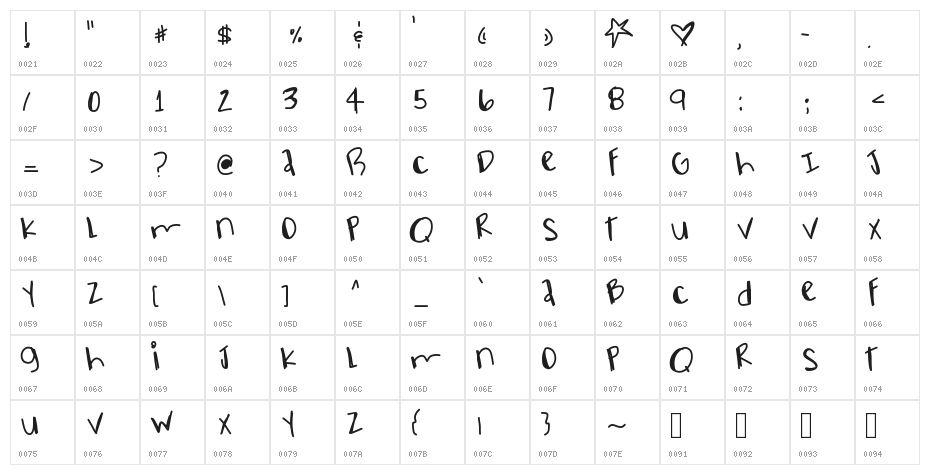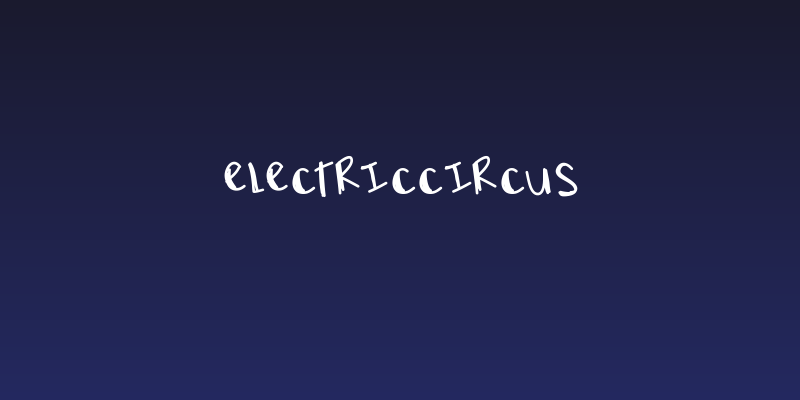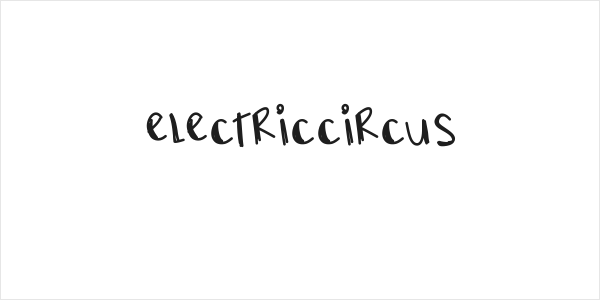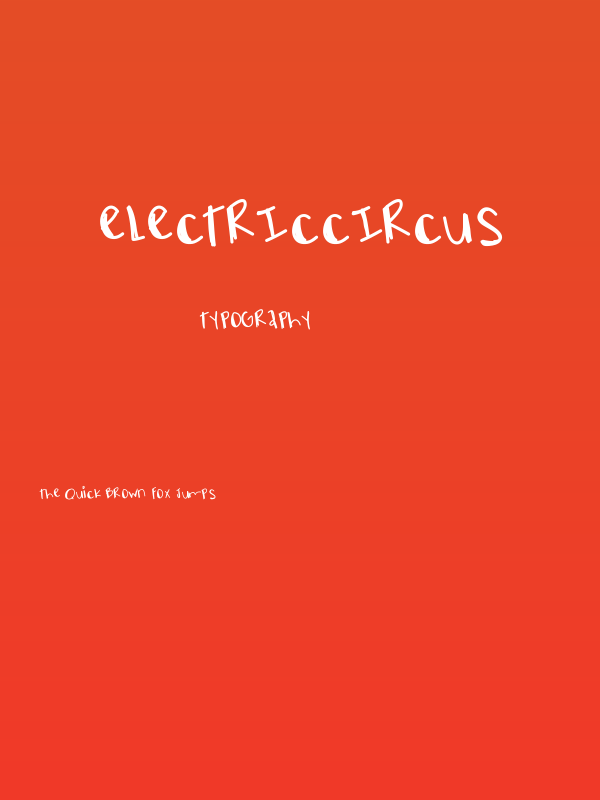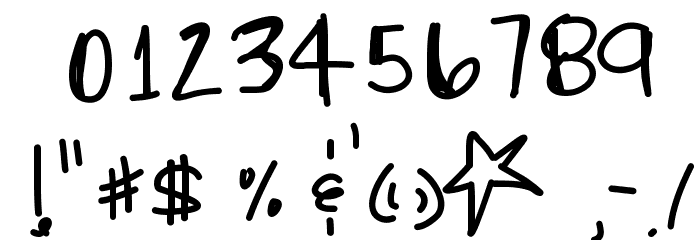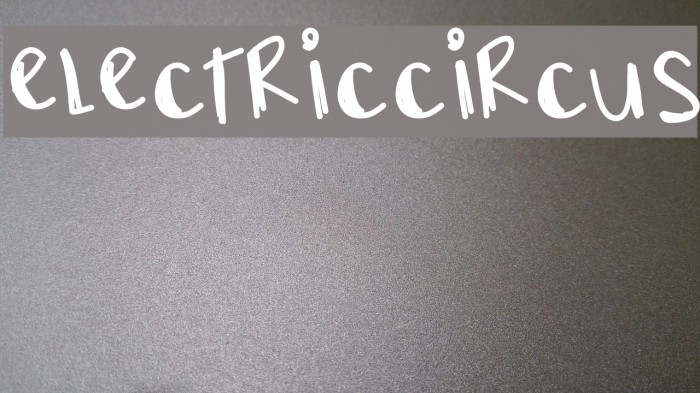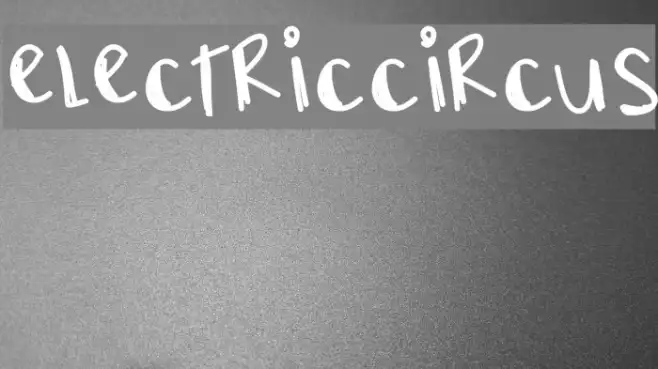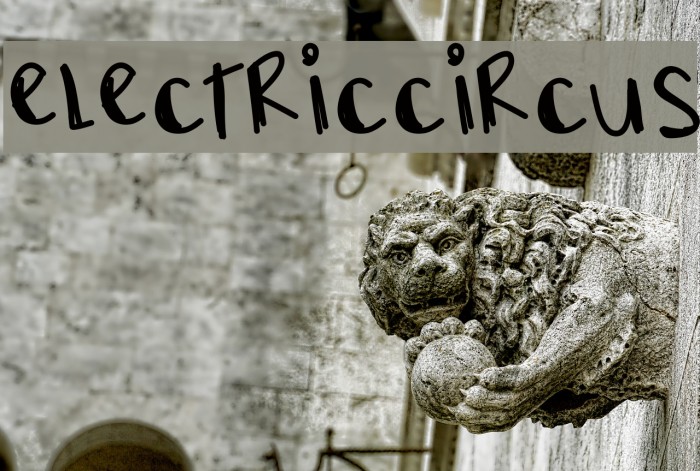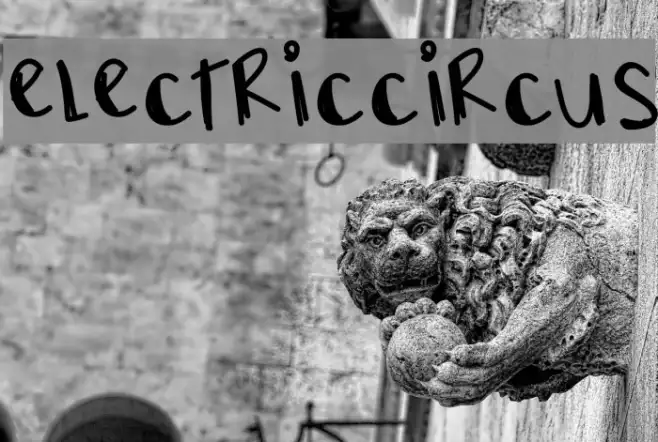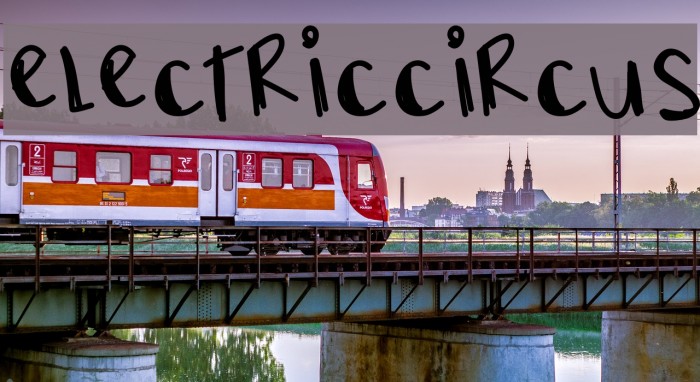
ElectricCircus Font
ElectricCircus Description
This playful and energetic font features a handwritten style with bold, irregular strokes that give it a lively and spontaneous appearance. The characters are slightly tilted and vary in size, adding to the whimsical feel. The uppercase and lowercase letters maintain a consistent style, while the numbers and special characters are equally dynamic. This font's unique personality makes it stand out, perfect for projects that require a touch of fun and creativity.
| Proposed Projects | Ideal for children's books, party invitations, playful branding, and creative posters. |